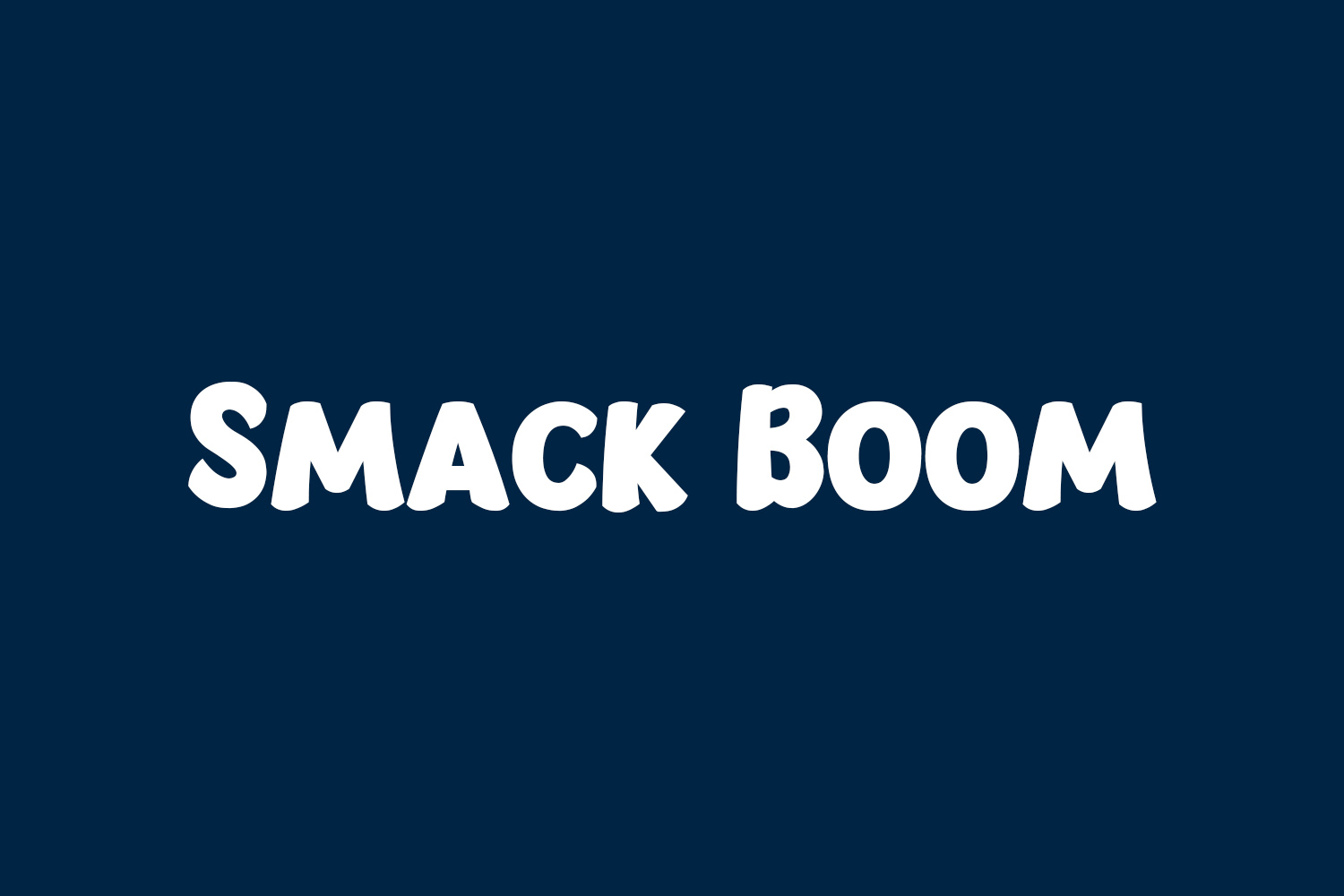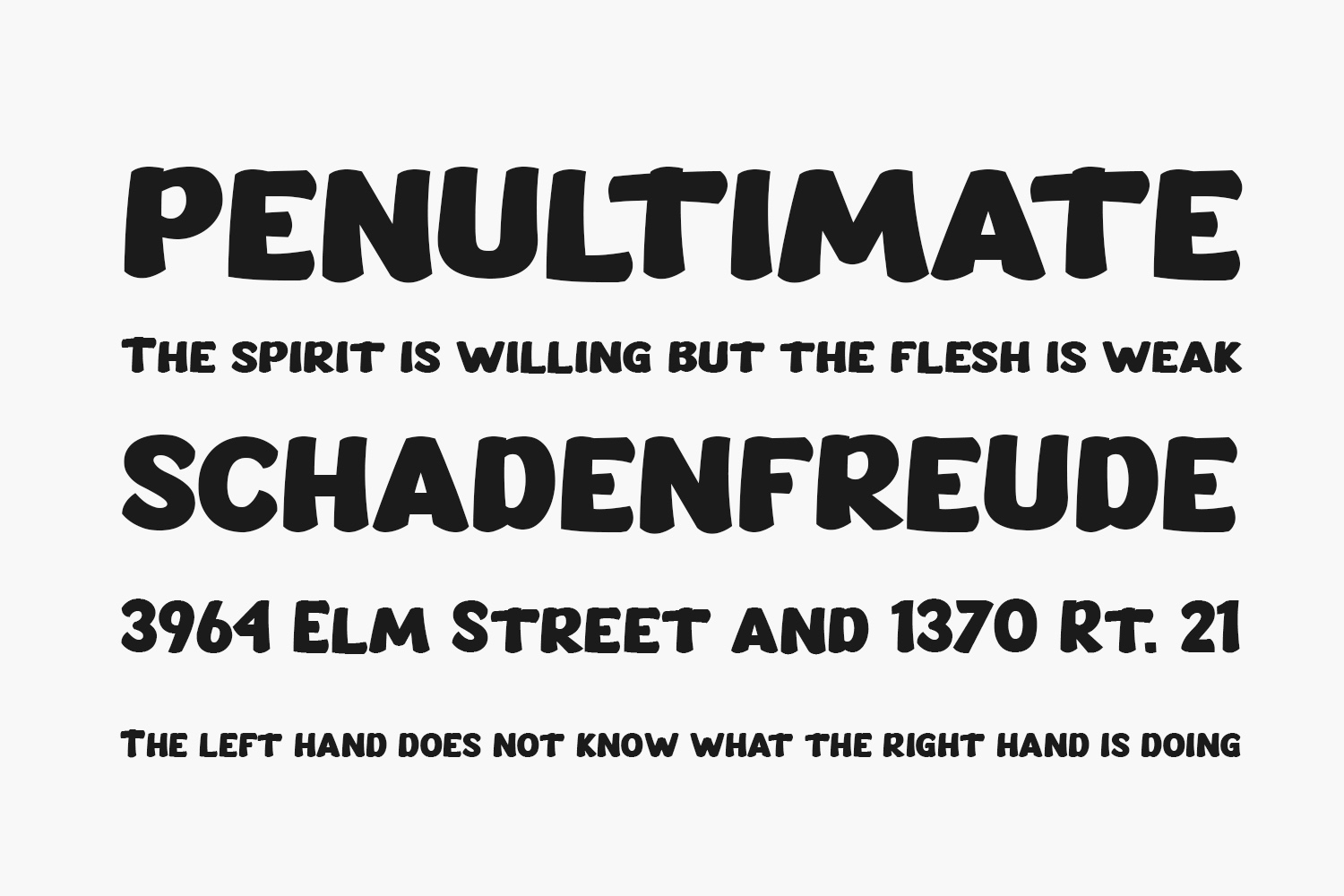
Smack Boom Free Font Family is a flashy, adventurous font that packs a punch. With its bold lines and curvy details, it brings dynamic energy to any design. Perfect for comic books, posters, and headlines that demand attention, Smack Boom is a free font that will add excitement and flair to your designs. Get ready to bring your designs to life with Smack Boom!
Designed by Bangkit Tri Setiadi